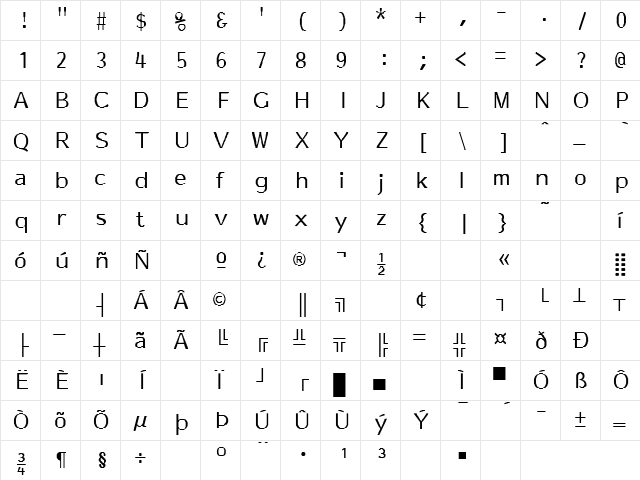
Rock And Roll 5 Regular
Design Context for Rock And Roll 5 Typeface
Rock And Roll 5 takes a measured approach to typography — its balanced proportions and neutral character make it a reliable workhorse for both digital and print work.